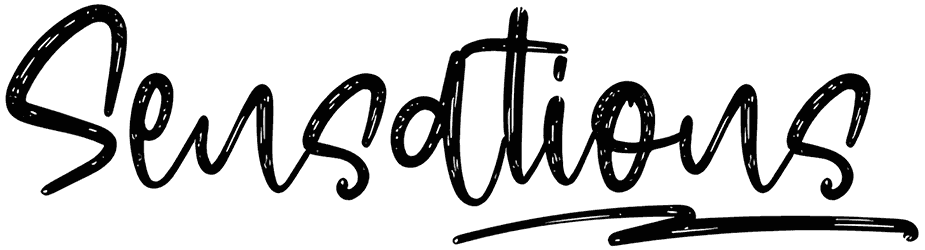
Overdose Sunrise Font
It’s time to go with Overdose Sunrise and make a super striking layout. In this case, the edges of the letters are eroded and rusty as if the brush was dried up. You can make use of it for flyers, magazines, books, etc. Need more brush fonts? Browse RB, you’ll find all the 80s metal fonts you are looking for.
Designed by: Chequered Ink